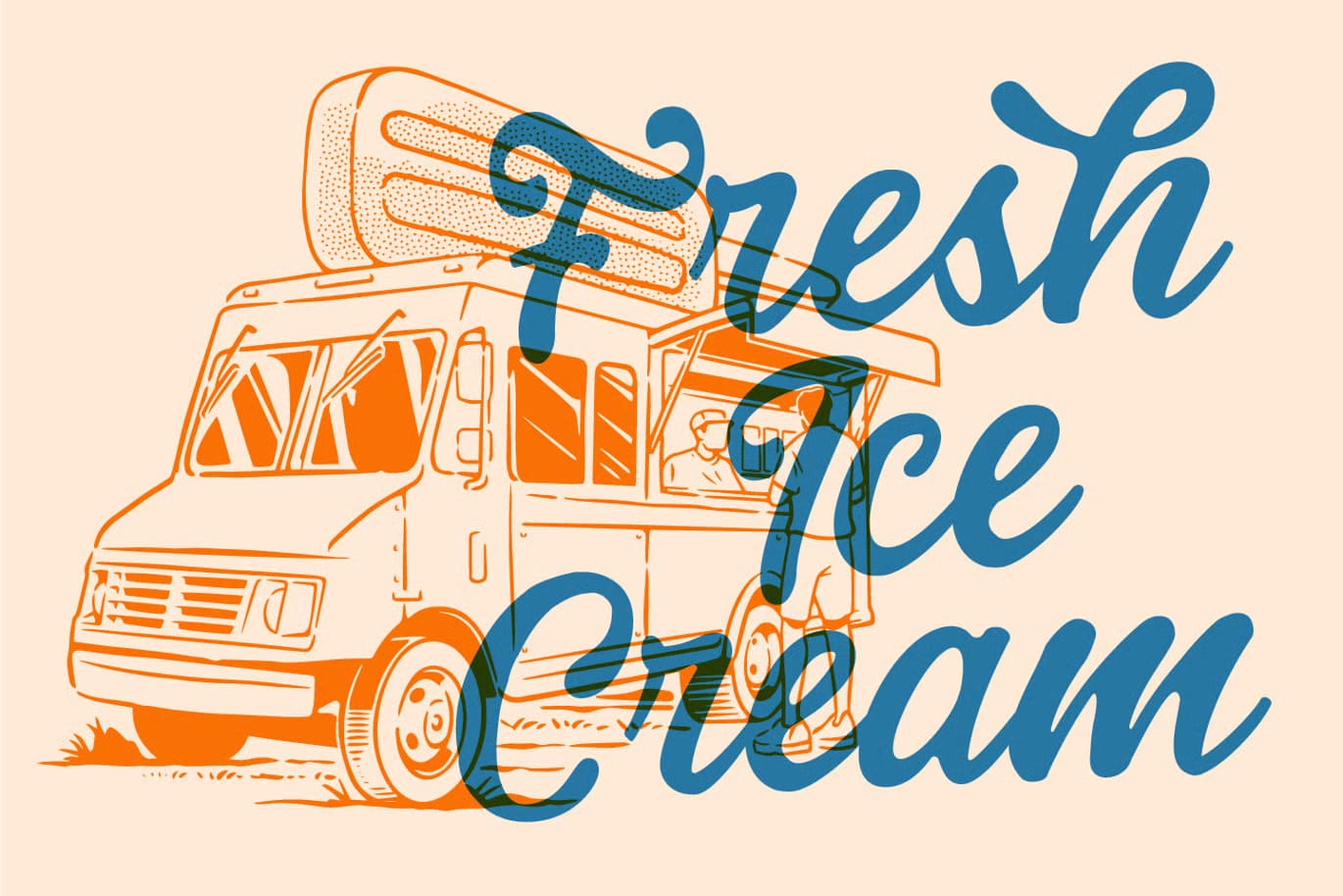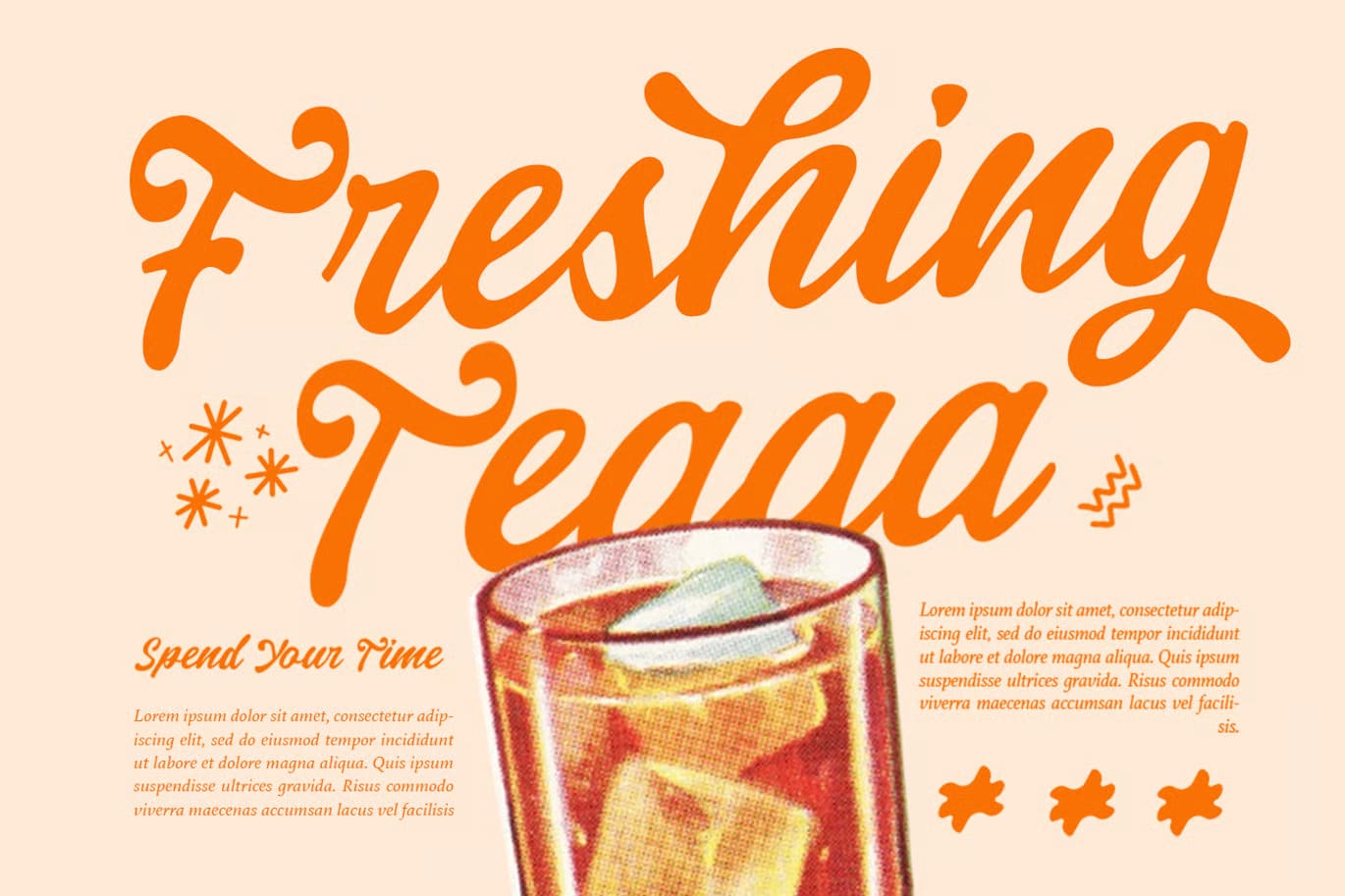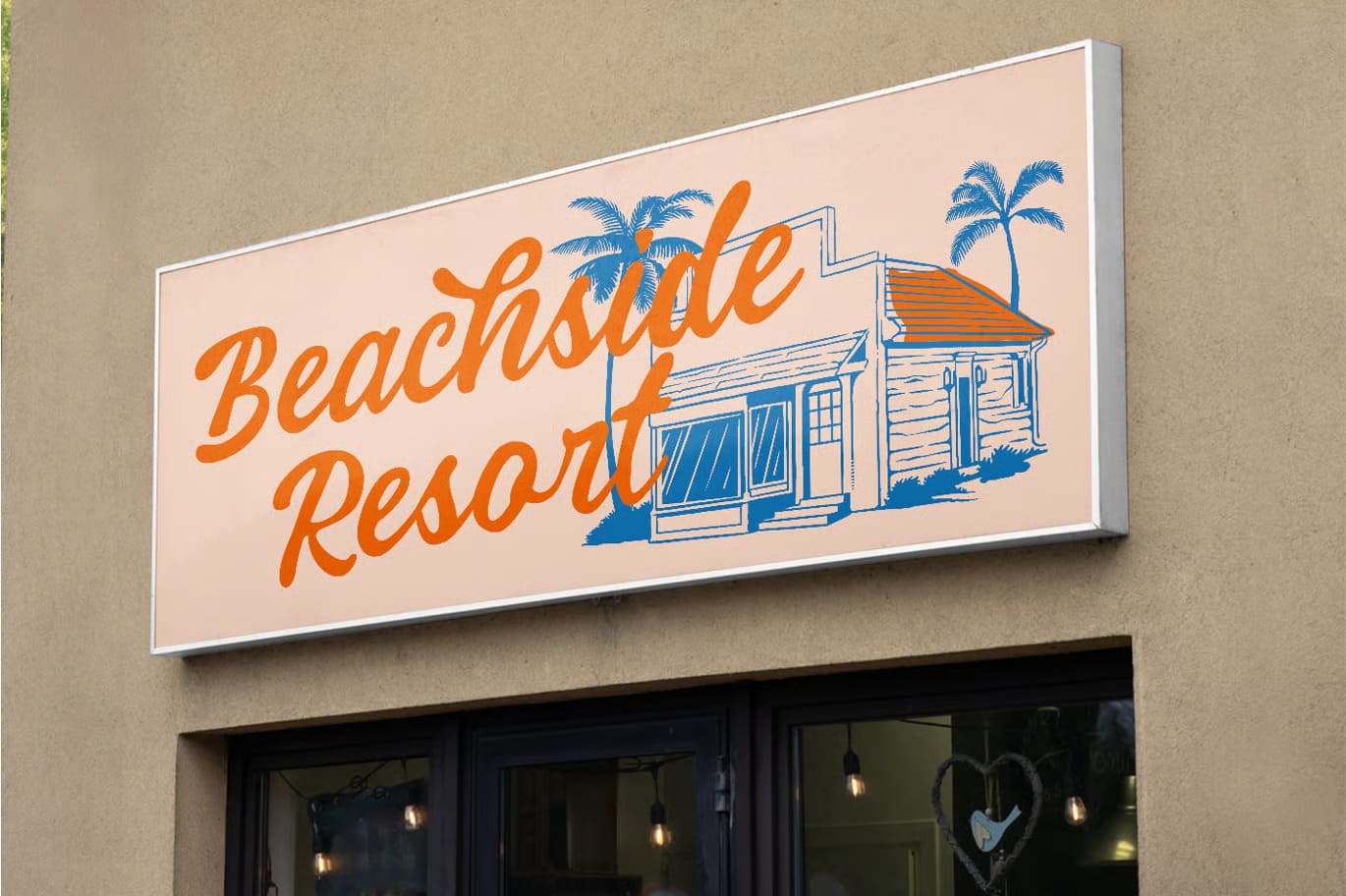
Balney is a rounded script font with a soft retro feel and a fresh modern look. The smooth curves and balanced strokes give it a natural flow, making it easy to use in different types of design projects.
It’s a good choice if you want something friendly and clean without looking too casual. The style fits well for summer themes, lifestyle brands, and product designs, while still keeping everything readable at different sizes.
Each letter is designed to connect nicely, so the text feels consistent and smooth. This makes it useful for logos, branding, packaging, and social media visuals where a simple but strong style is needed.
- Rounded script style with smooth connections
- Works for branding, logos, packaging and social media
- Fits summer, lifestyle and fashion-related designs
- Well-balanced kerning for better readability